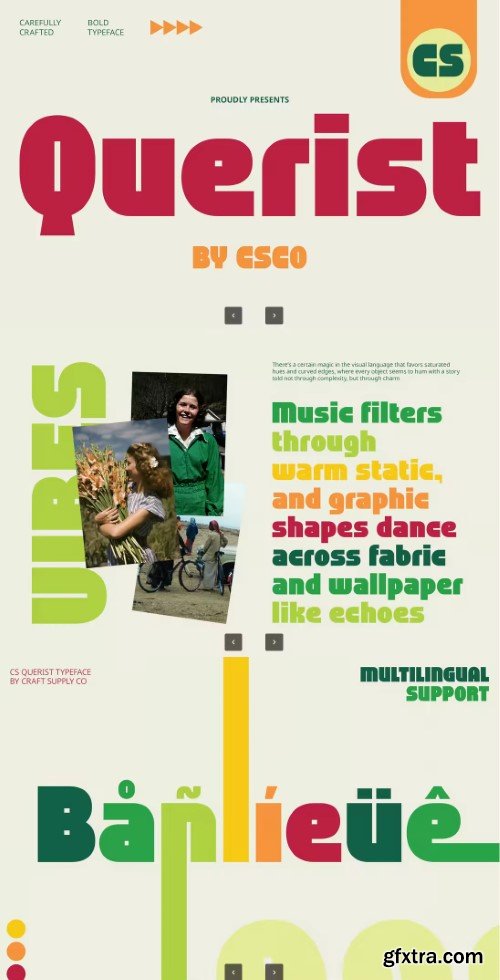
Creativemarket - CS Querist – Bold Font
- Classic Boldness with a Retro Spirit CS Querist – Bold Font is a bold sans serif typeface that combines vintage charm with modern clarity. Inspired by the strong, utilitarian type styles of the mid-20th century, it features thick strokes, clean edges, and balanced proportions. This font offers the perfect fusion of retro character and contemporary functionality, making it ideal for striking, confident design work. Solid Forms for Confident Visuals Designed with thick strokes and clean cuts, CS Querist delivers impact with every character. The weight and structure of each letter evoke authority and clarity, making it a perfect fit for headlines, banners, and titles that demand a strong typographic voice.